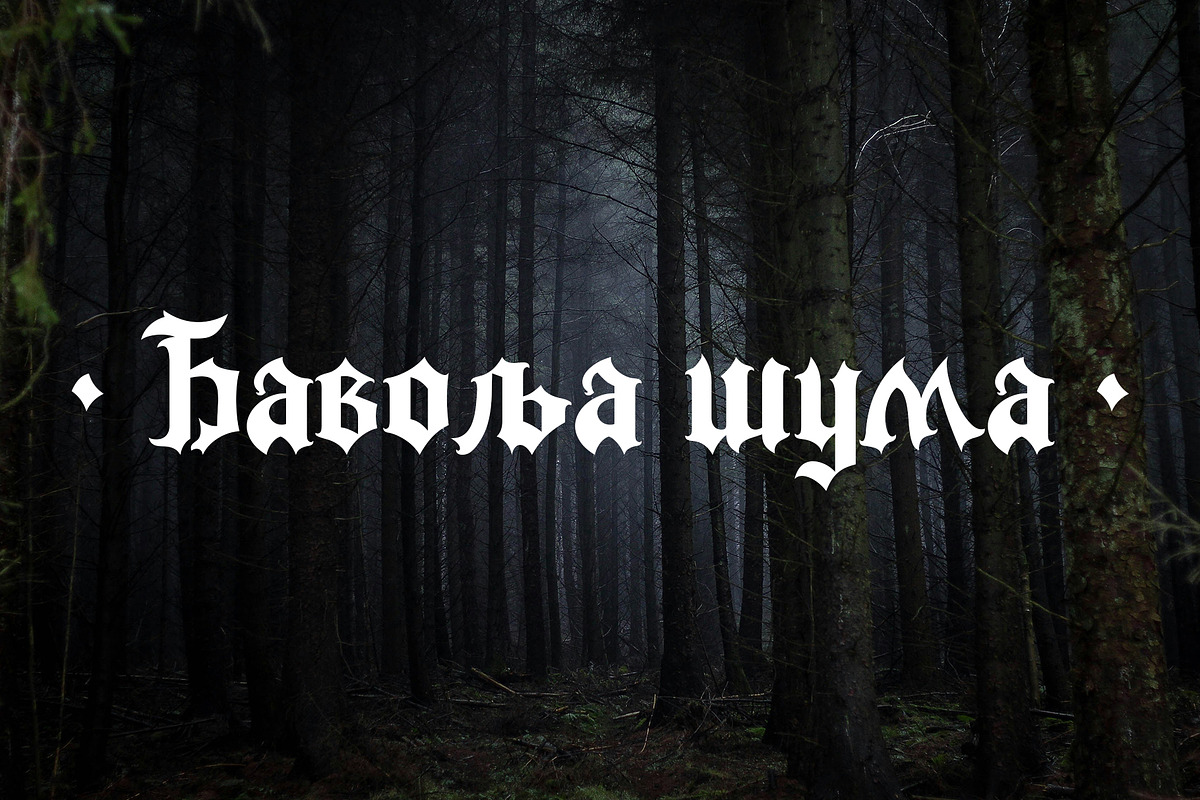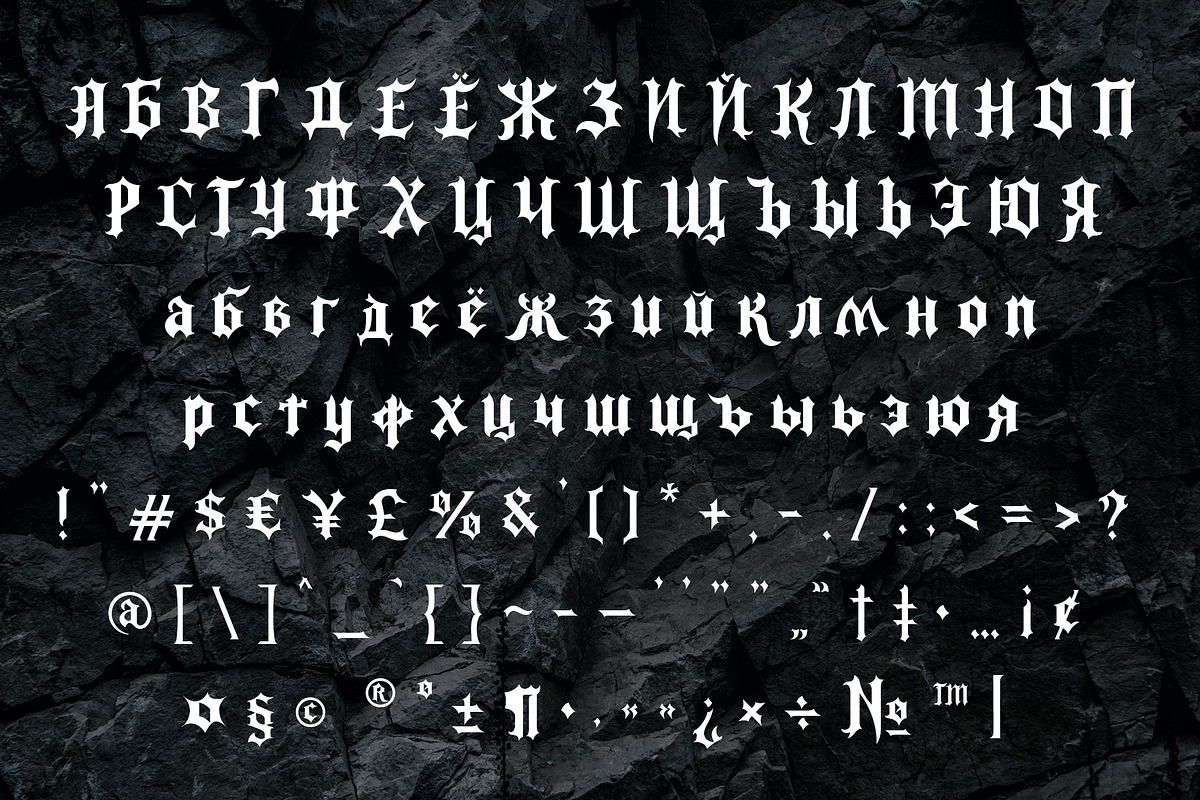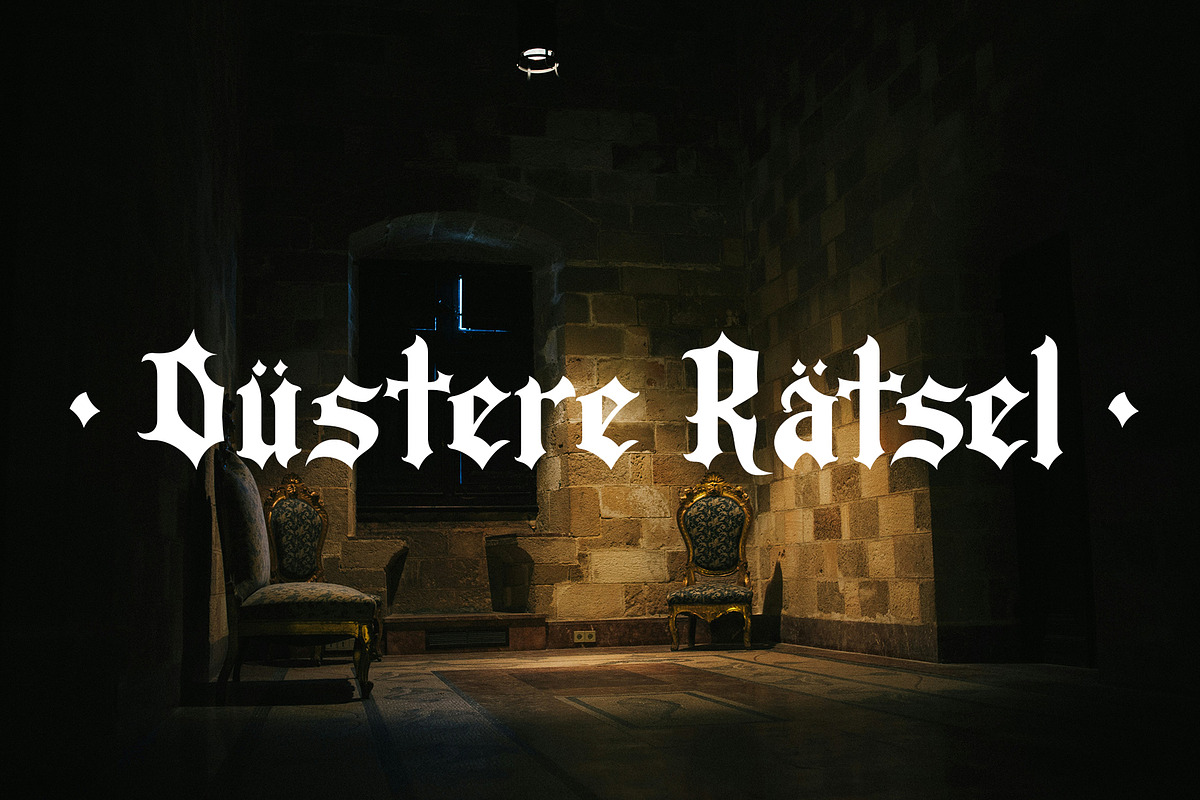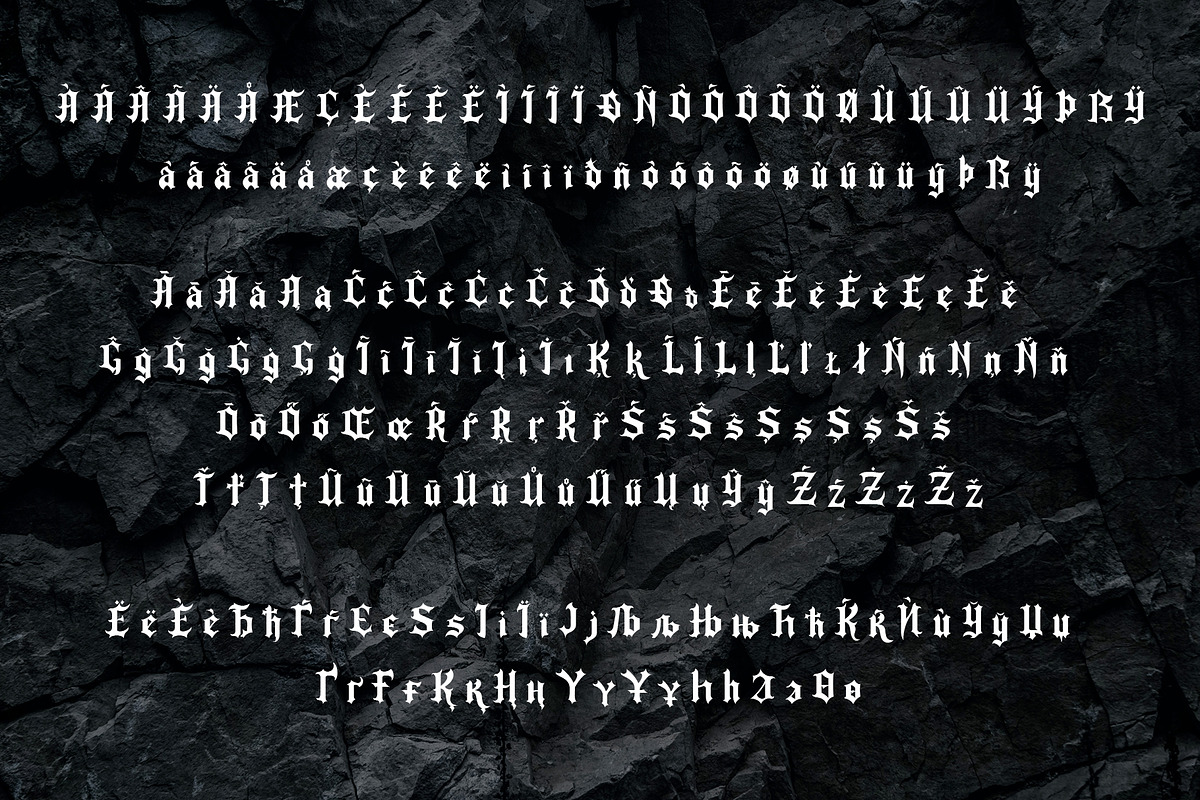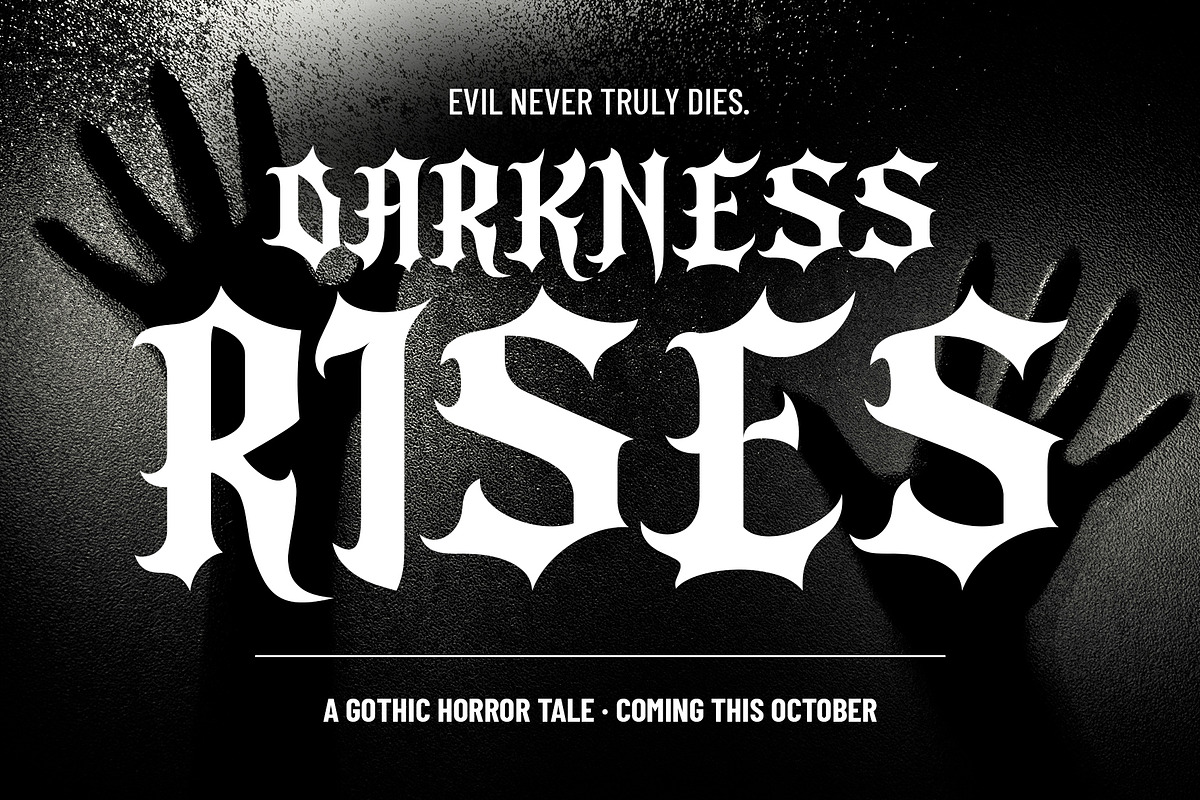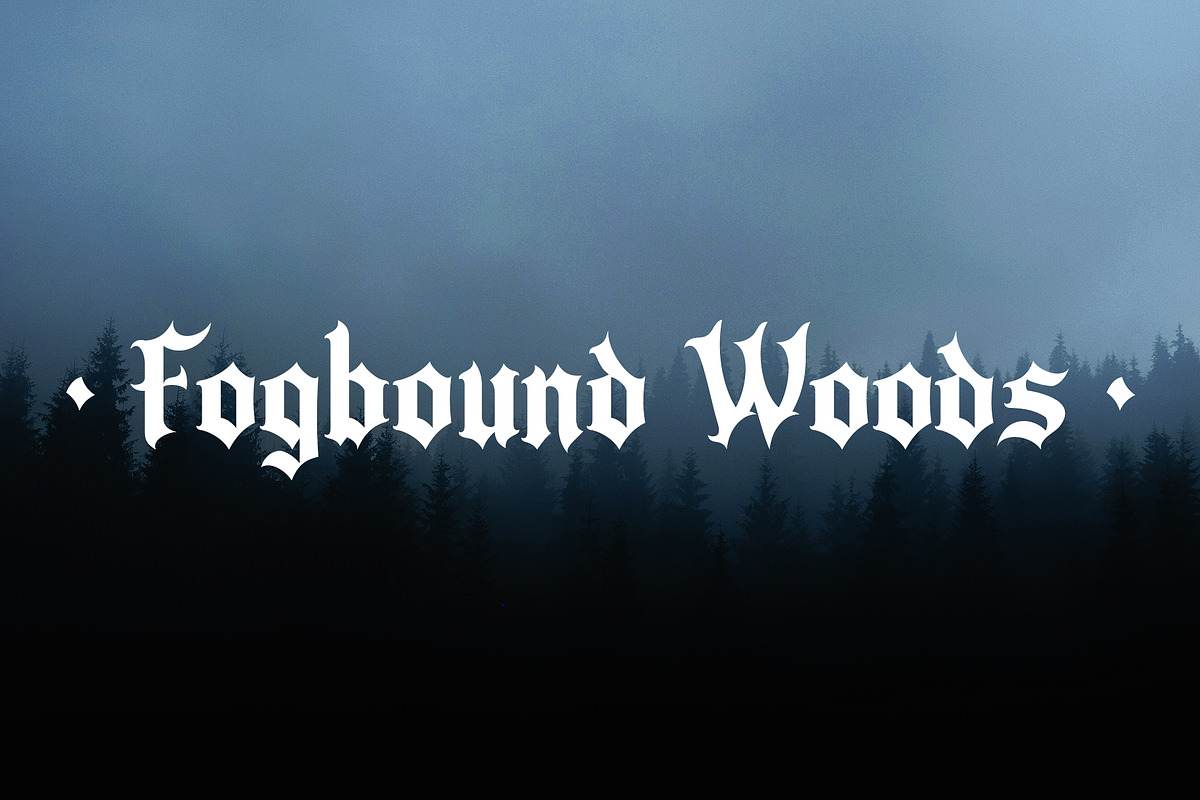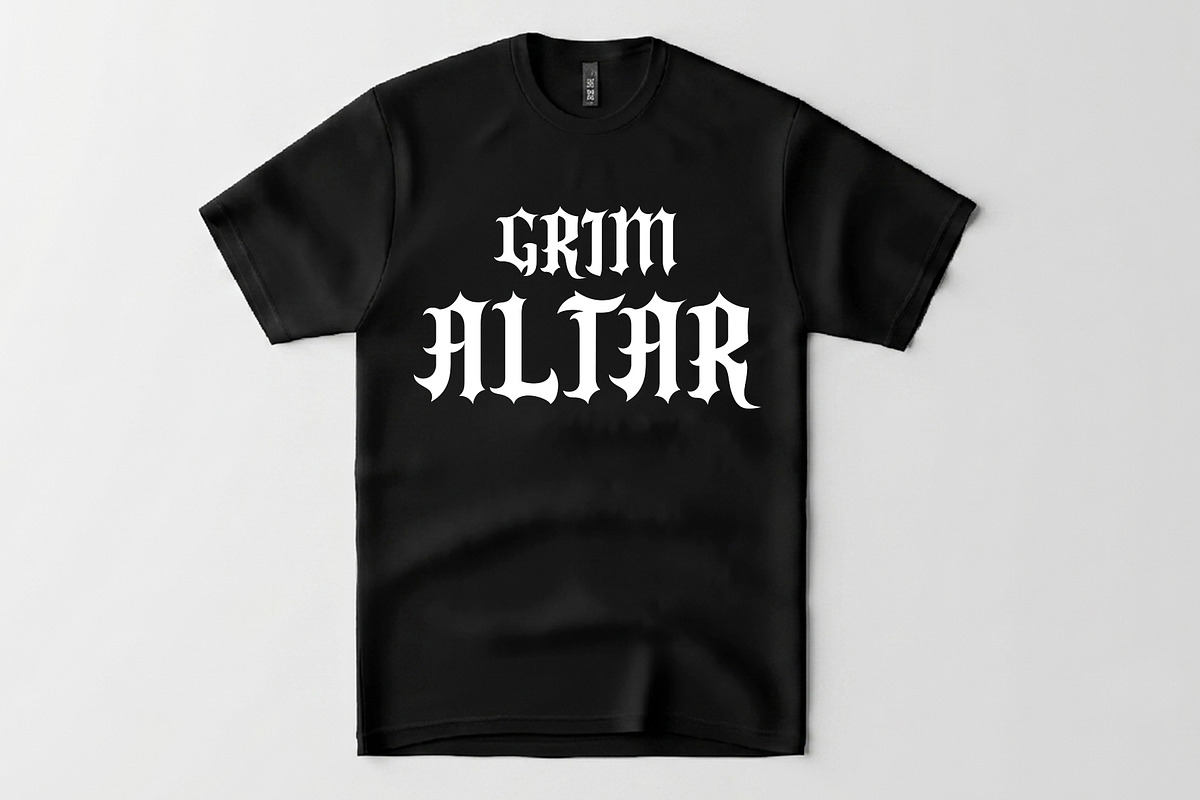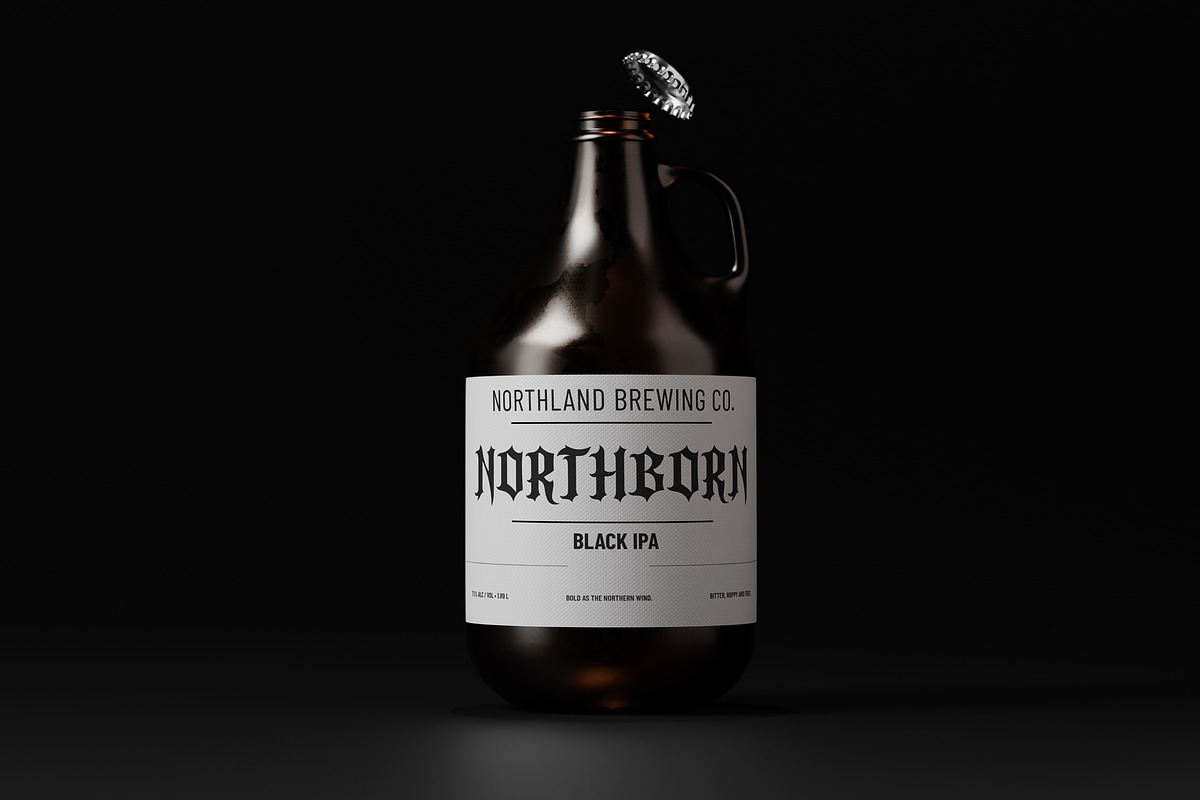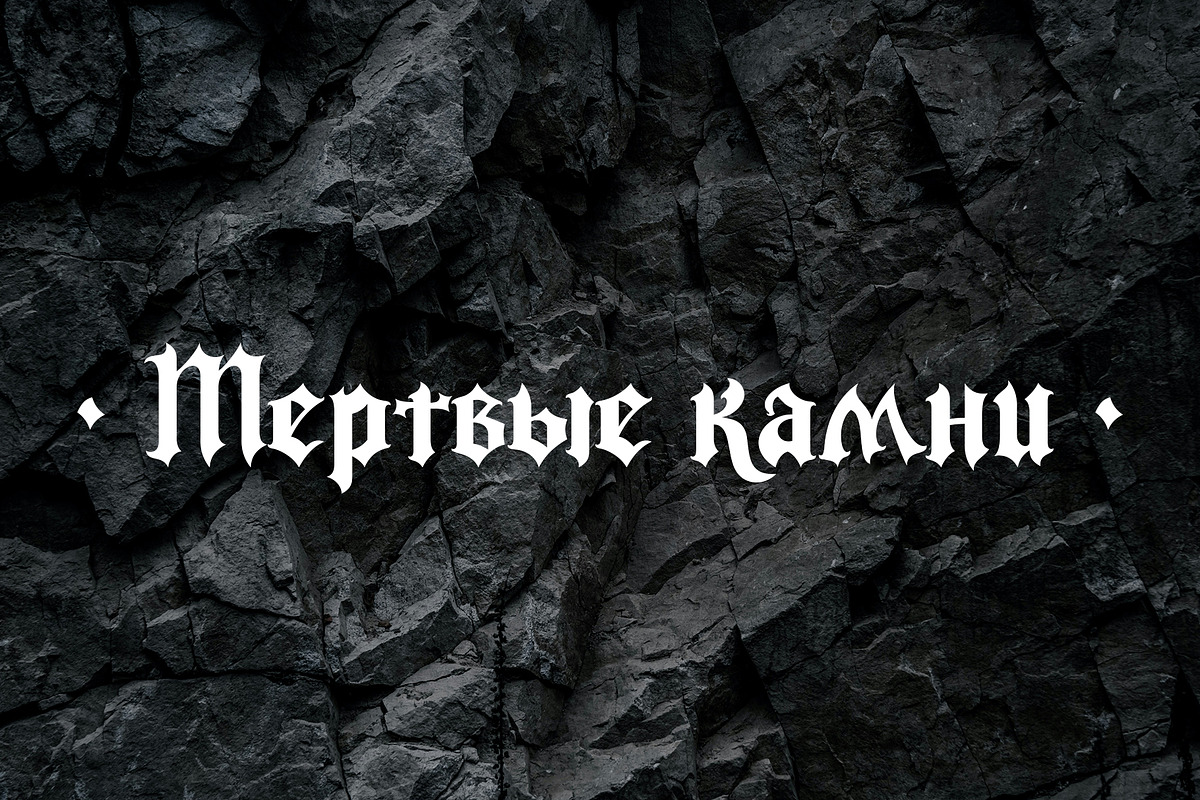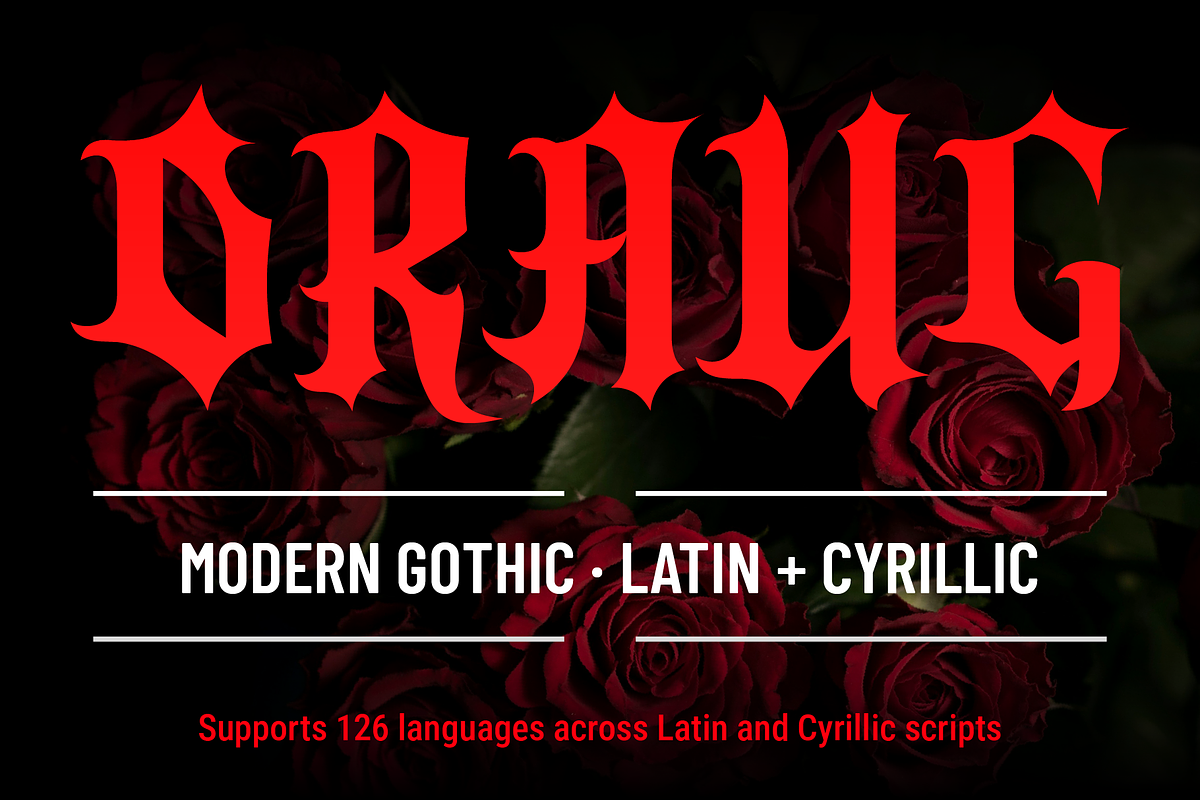
Draug Gothic Blackletter + Cyrillic
Draug Gothic is a dark, aggressive display font built for branding with an edge: metal band logos, dark fantasy book covers, RPG and horror game titles, craft brewery labels, apparel, tattoo lettering. Sharp serifs, dense letterforms, and legibility that holds up even at the decorative end — this font works as a bold headline and as a tightly-set logotype.
The core difference: Draug Gothic is built equally strong in Latin and Cyrillic. Most blackletter fonts on the market either skip Cyrillic entirely or fake it — stretched Latin shapes with bolted-on letters. Here Cyrillic was drawn as its own system, following the same decorative logic as the Latin: Ведьма, Замок, Легенда, Орден, Проклятие set with the same confidence as Witch, Castle, Legend, Order, Curse.
Full Latin + Cyrillic character set, diacritics covering 126 languages (verified via hyperglot)
Cyrillic: Serbian, Russian, Ukrainian, Belarusian, Bulgarian, Macedonian, Kazakh, and more
Kerning hand-tuned across all pairs — not left to auto-kern
Contextual alternates (calt): the font automatically swaps in alternate letterforms where decorative elements would otherwise collide — no manual alternate-hunting required